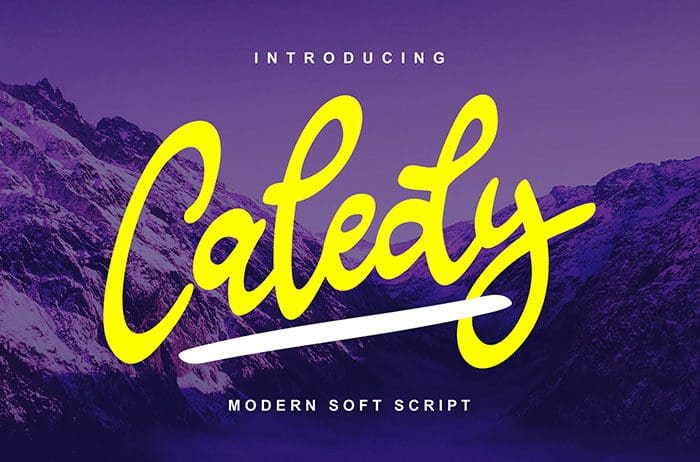
Caledy pays homage to classic script font and delivers a one-of-a-kind font experience. Fall in love with its modern charm. Thanks to Vunira Studio for sharing this font! Take a look at this portfolio for more of his stunning fonts.
Designed By : Vunira Studio